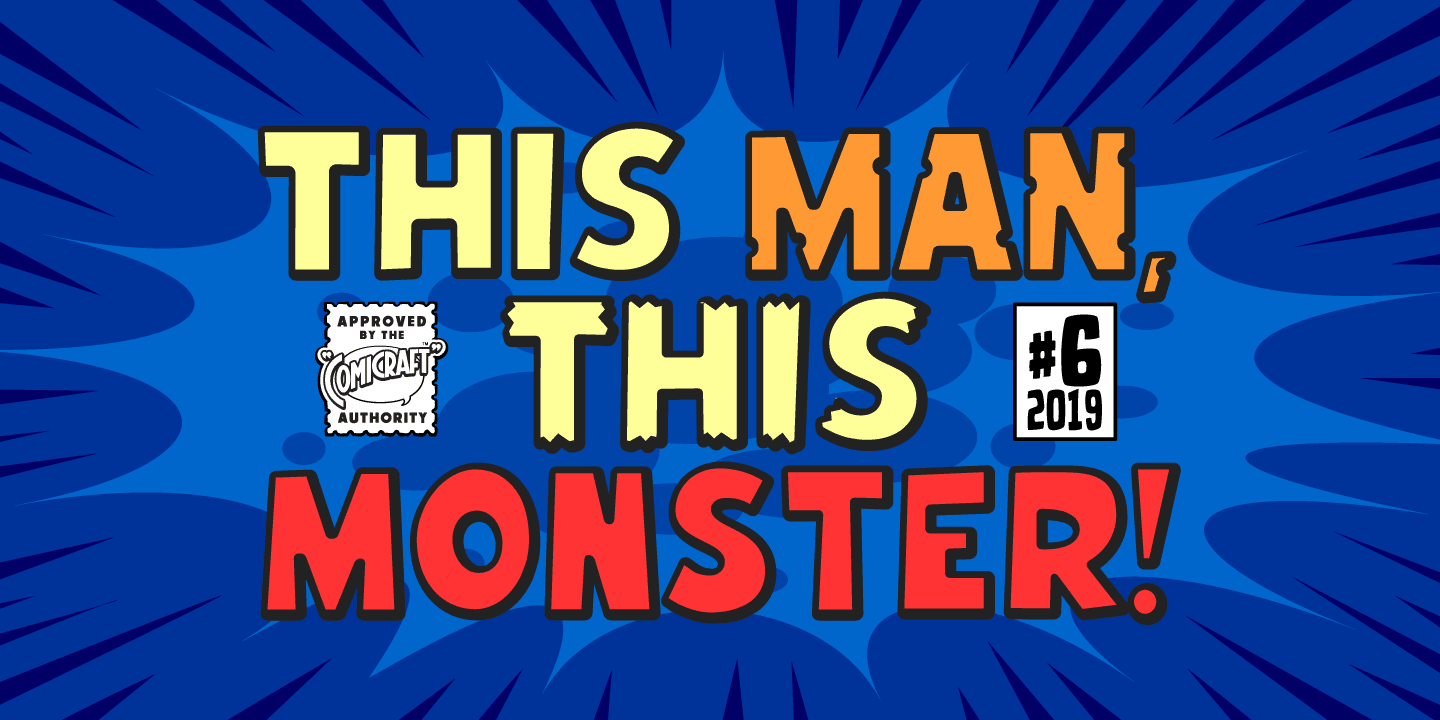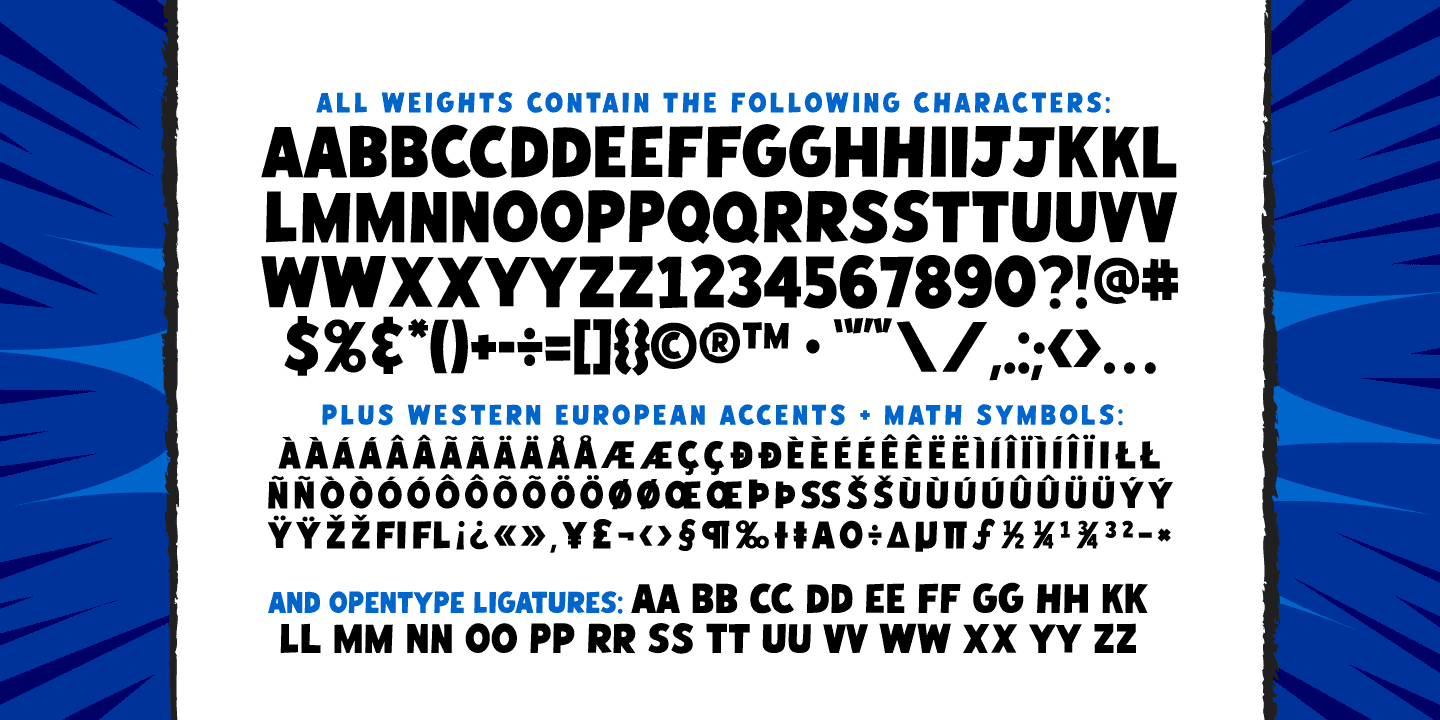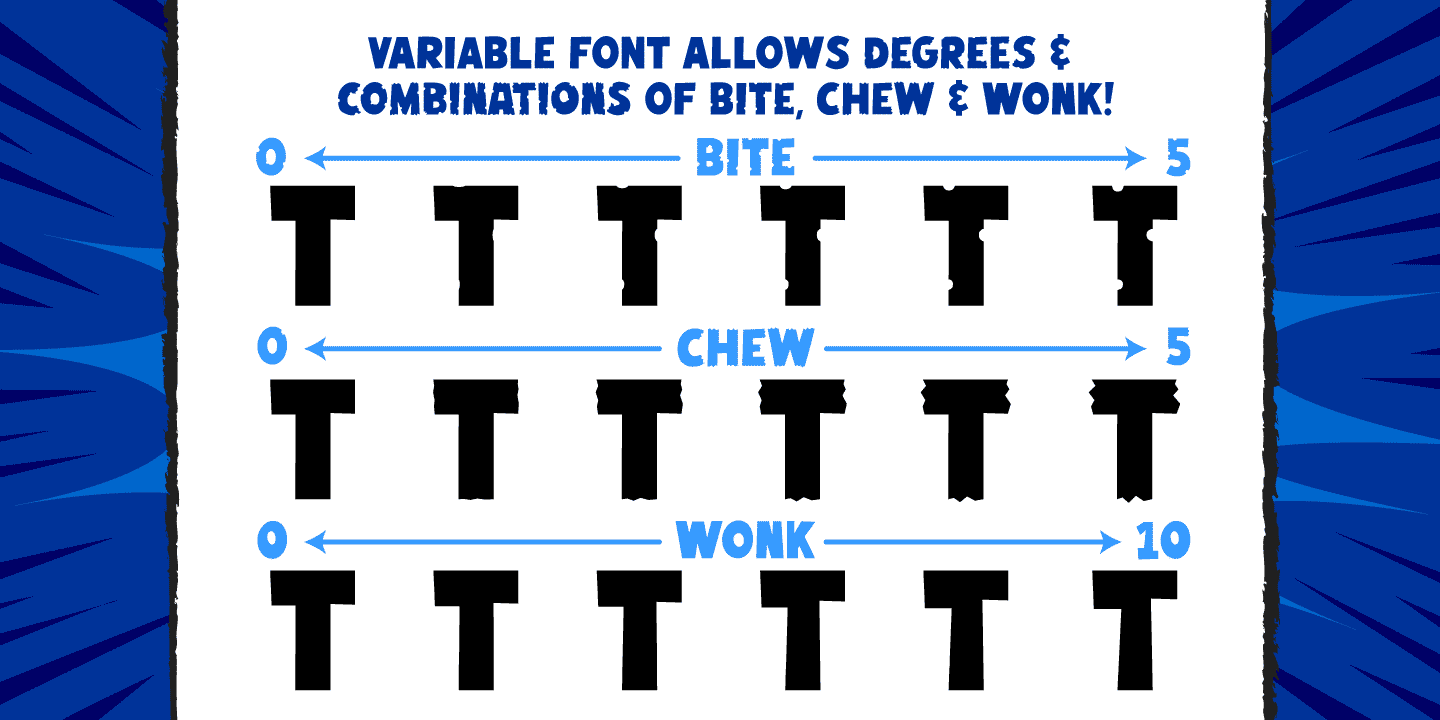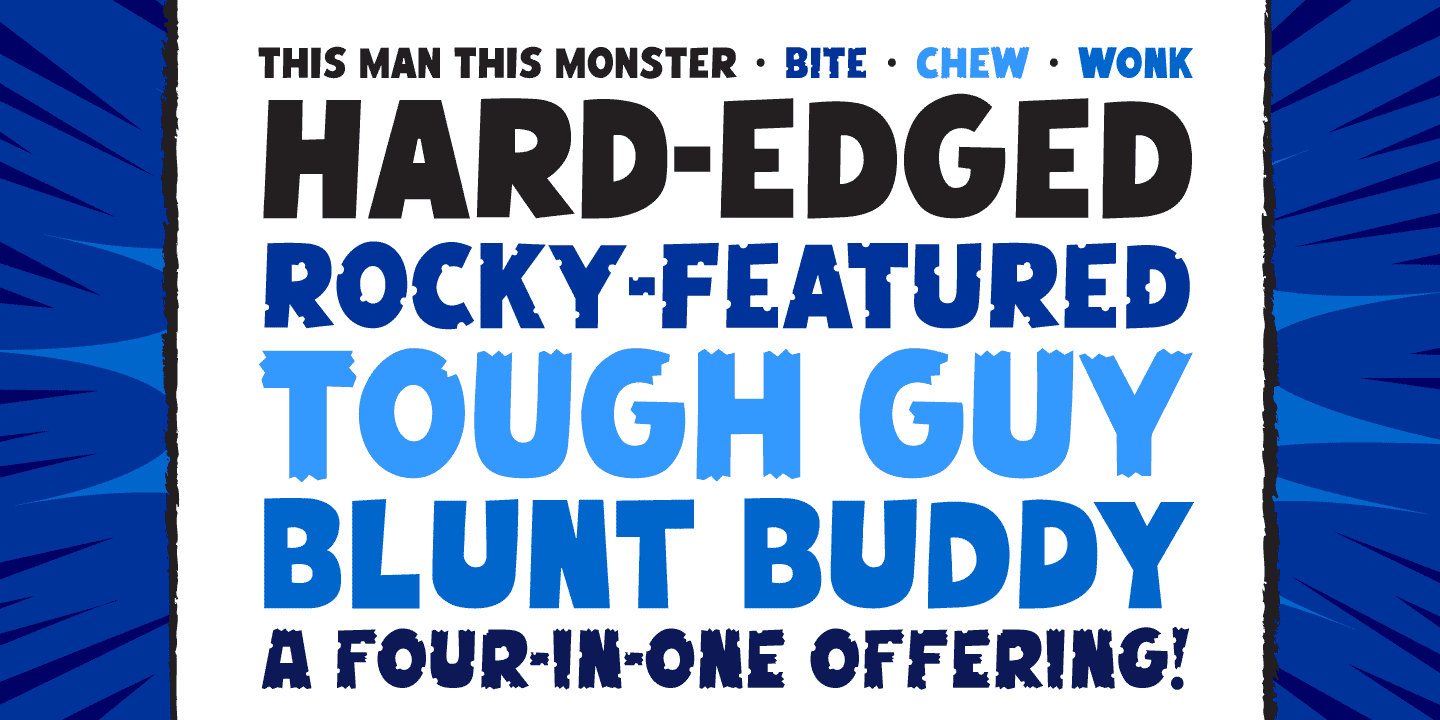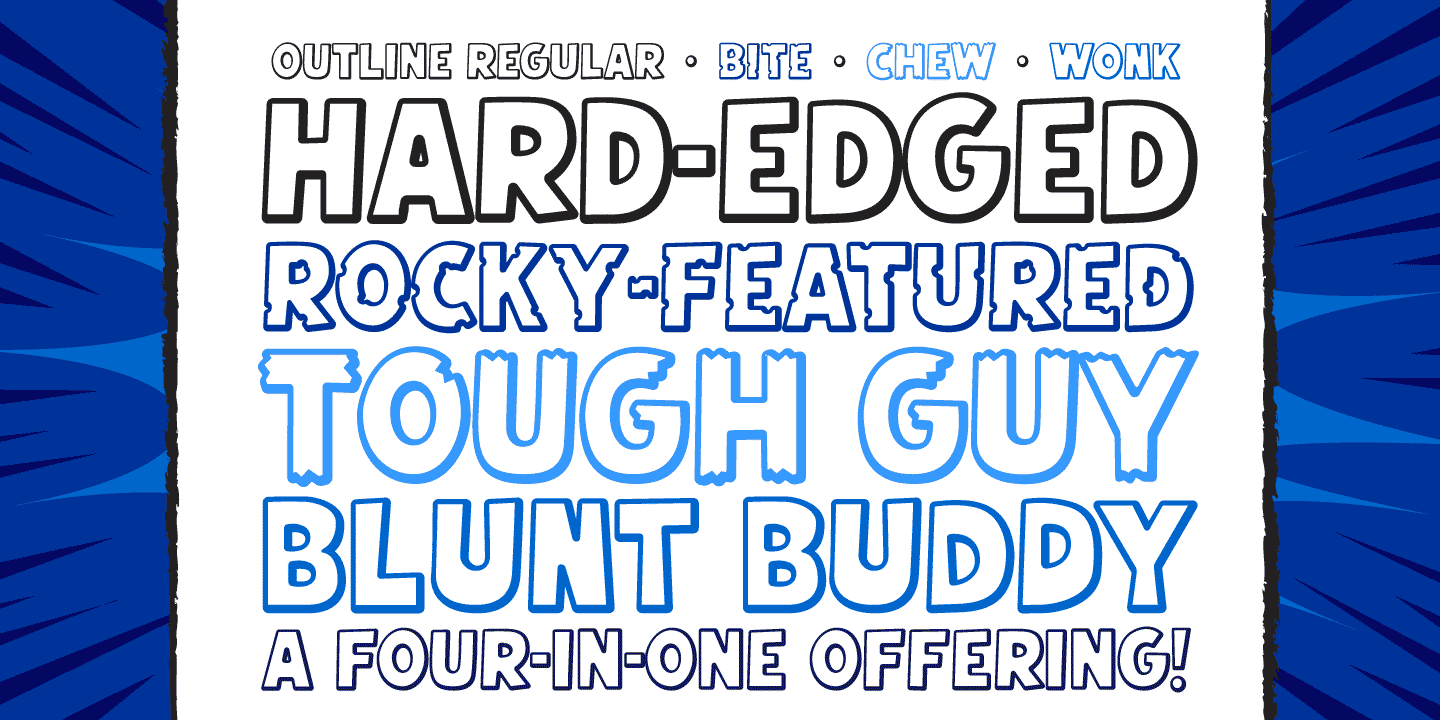
This Man This Monster
Font Family by Comicraft Fonts
Half Man, Half Monster, Comicraft's latest variable font hybrid, is not only your burly, hard-edged, upfront, and blunt buddy, it's also your rough-hewn, tough and grim, rocky-featured pal! Not just Two-in-One, our latest offering combines Four Fantastic Faces, with an all-powerful Variable Font to choose any point in between!